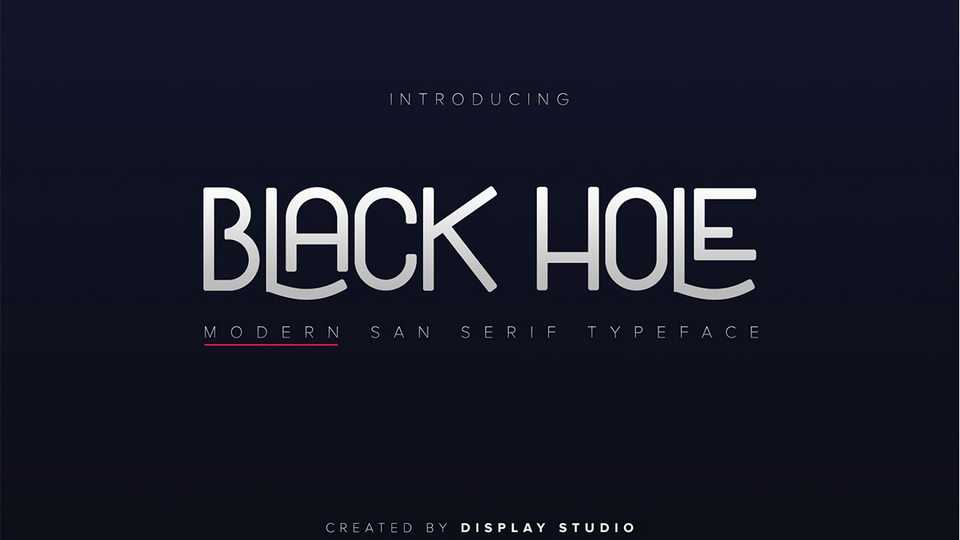
Download Black Hole font, a modern decorative sans serif typeface. Black Hole is perfect for logo, badges, posters and prints and kind other projects.
Designer: Display Studio